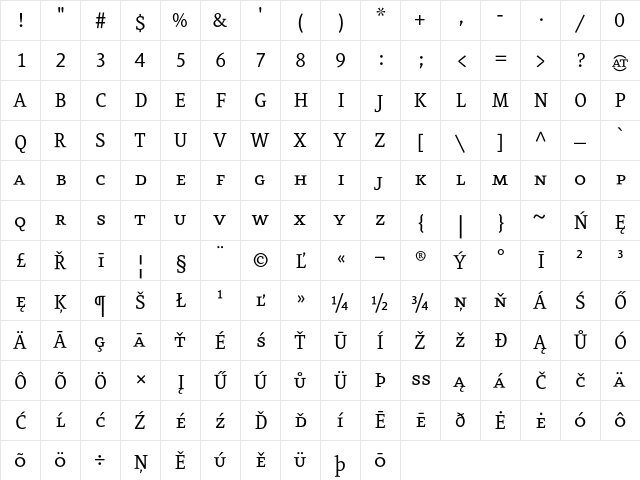
EurekaCE SmallCaps
| Style | SmallCaps |
Design Context for EurekaCE Typeface
EurekaCE takes a measured approach to typography — its balanced proportions and neutral character make it a reliable workhorse for both digital and print work.